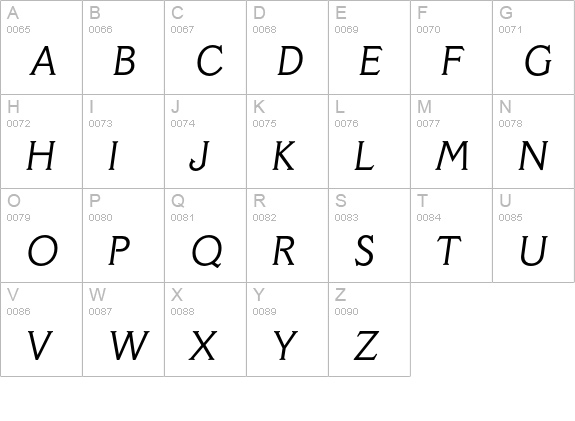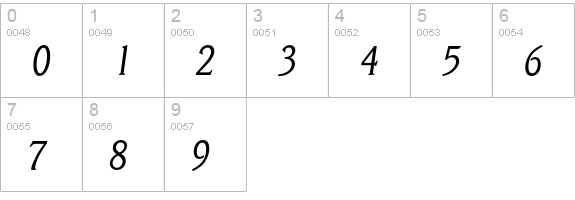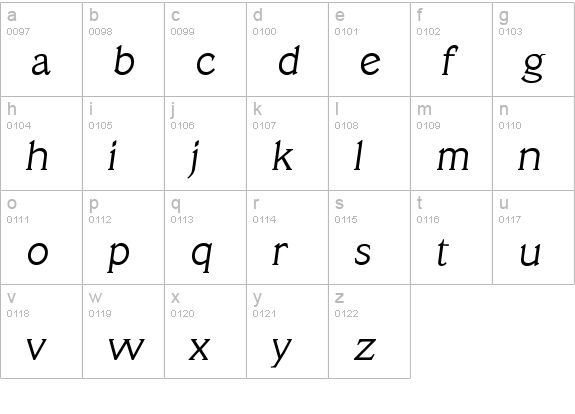
Veracruz-LightIta is an elegant and sophisticated font that exudes a sense of modernity and grace. Its delicate curves and refined lines make it perfect for adding a touch of class to any design project. This font is the epitome of versatility, as it can seamlessly adapt to a variety of styles and themes. Whether you're creating a logo, designing a website, or crafting a beautiful invitation, Veracruz-LightIta will bring a sense of elegance and sophistication to your work. One of the best features of Veracruz-LightIta is that it is absolutely free. Yes, you read that right! This stunning font is freely available to download at FontsMarket.com. Now, you don't have to break the bank to add a touch of luxury to your designs. With Veracruz-LightIta, you can create stunning visuals without spending a penny. So, why wait? Go ahead and download Veracruz-LightIta from FontsMarket.com and elevate your design projects to new heights. Whether you're a professional designer or a creative enthusiast, this font will surely become your go-to choice for adding a touch of elegance and sophistication to your work.